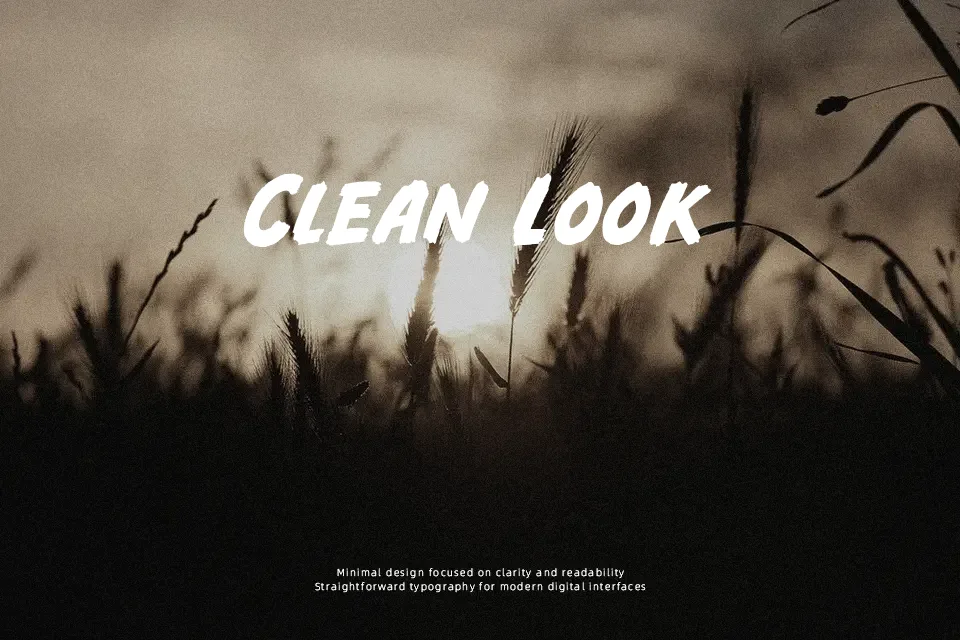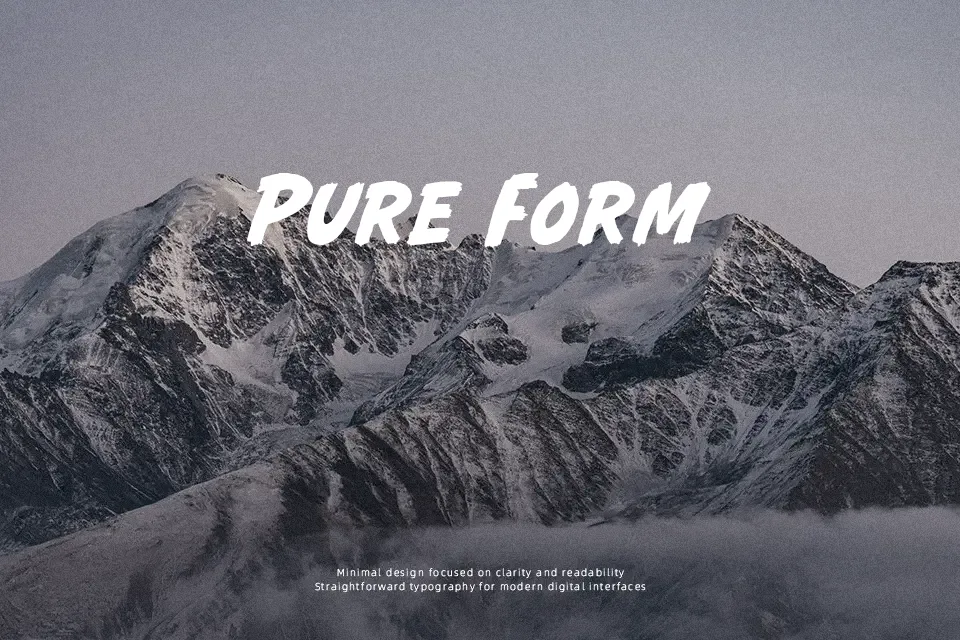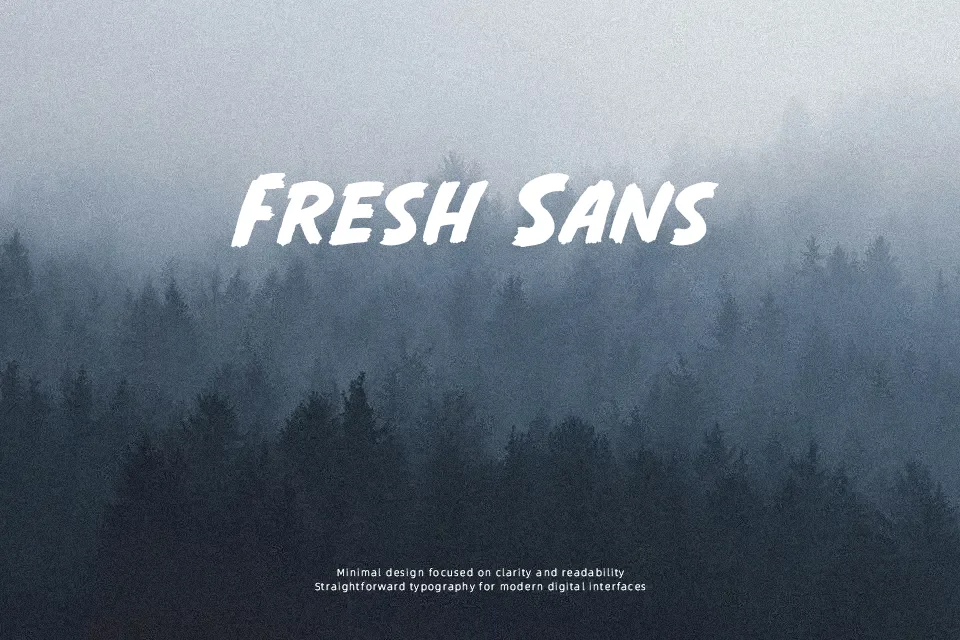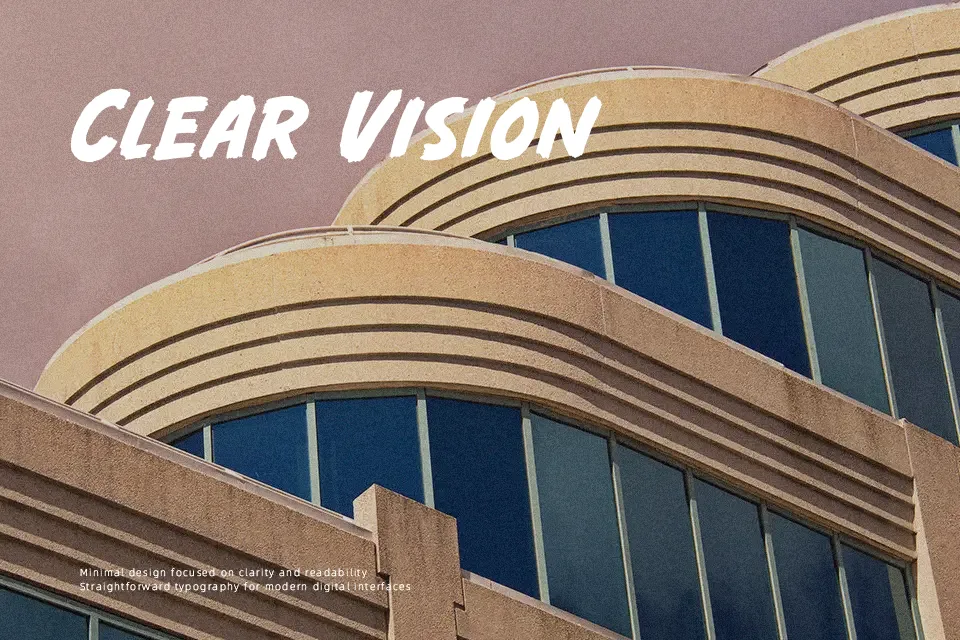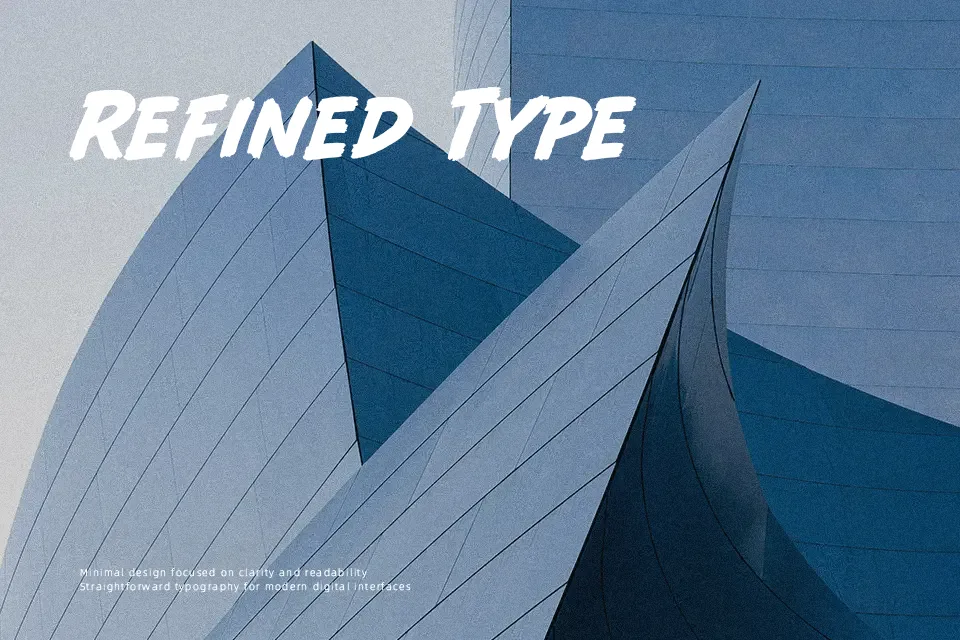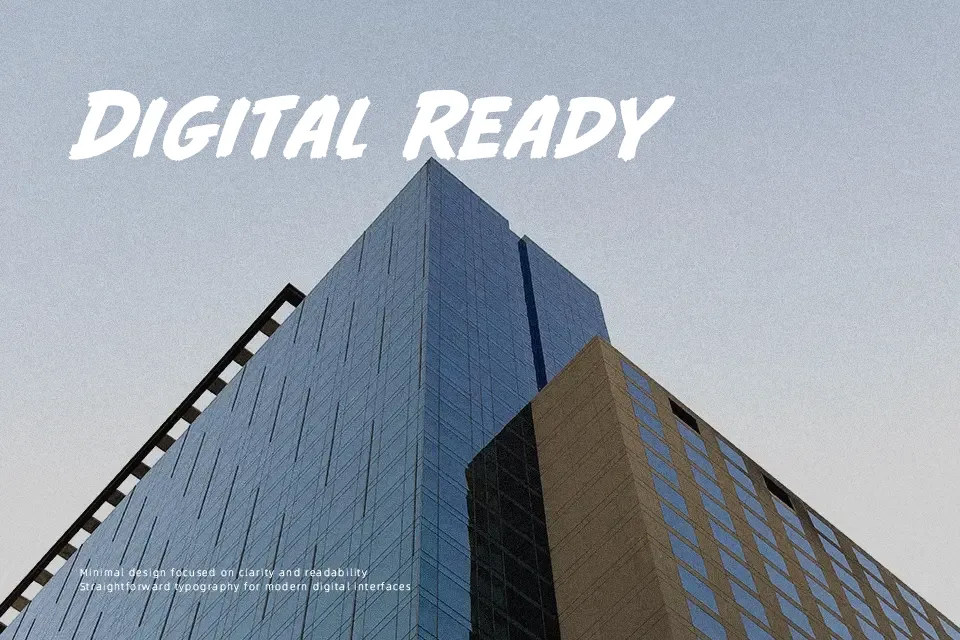
Night Shift Font
Night Shift presents bold, marker-like strokes that create a lively script texture, with characters built from sweeping curves, irregular joins, and visibly varied pressure along each stroke. The spacing feels relatively tight, so the letterforms cluster into dense word shapes that work well in short lines and prominent display text. Proportions lean toward medium width, with uppercase and lowercase forms sharing a consistent, freehand rhythm that keeps the design legible at larger sizes. The overall look is distinctly informal and expressive rather than refined, which suits signage, logotypes, and titles more than continuous reading. Decorative brush details add impact, but they can reduce comfort and clarity when the font is rendered at small sizes or used for long passages of text.
music or event posters
banner headlines and title graphics
informal logo wordmarks
packaging or label designs with a hand-drawn feel
long paragraph text or articles
small UI labels and tooltips
dense data tables or technical manuals
Perfect for branding, headline, and logo, with a artistic and brush style.